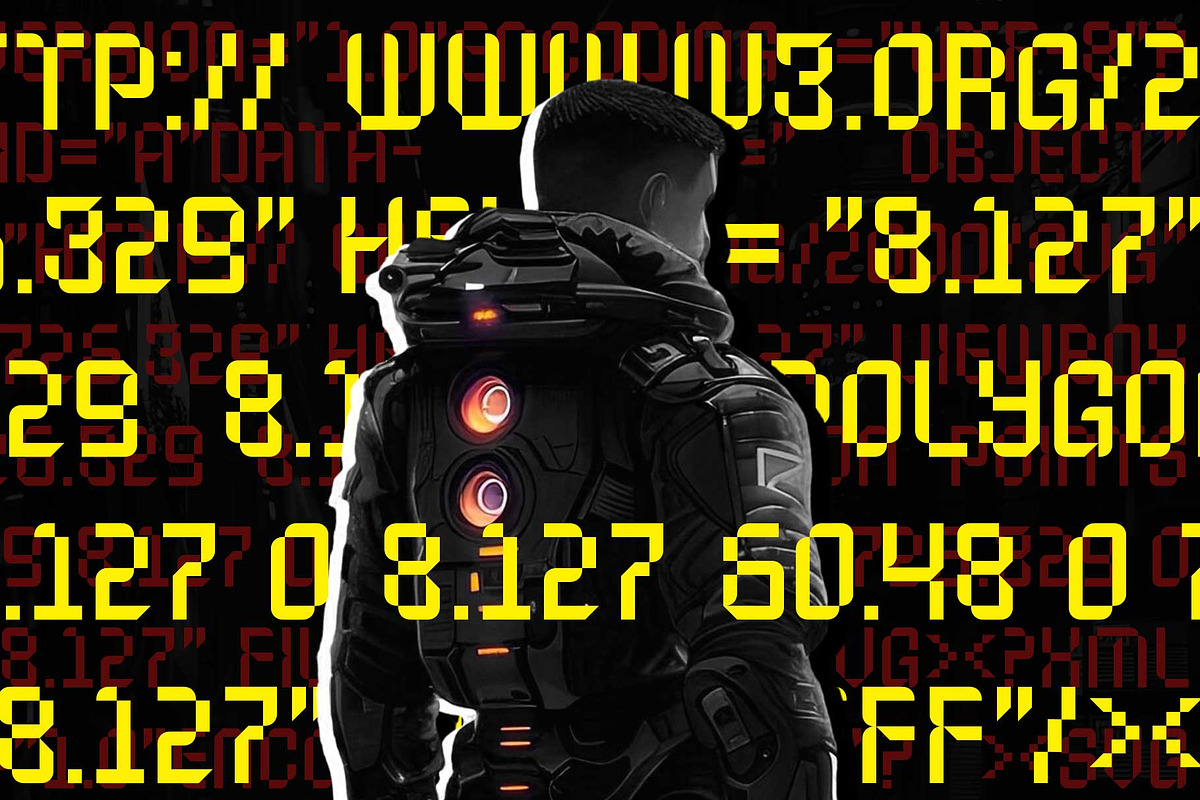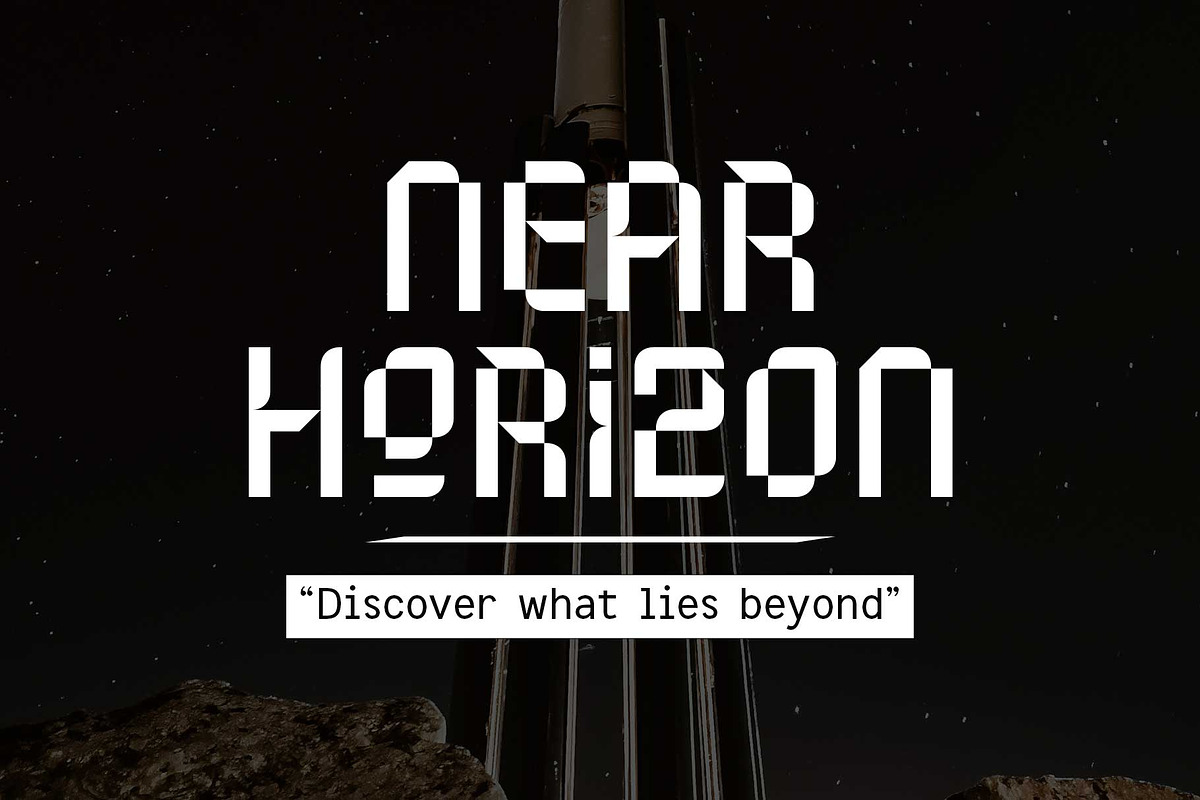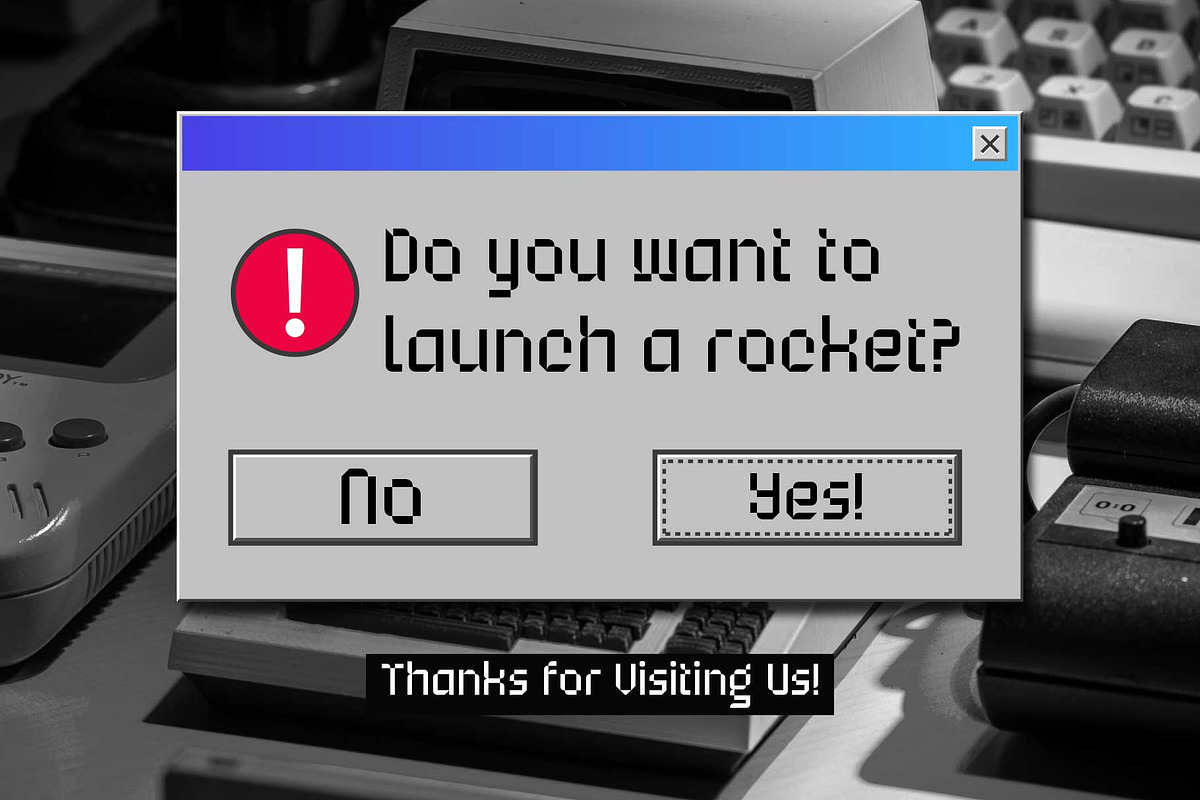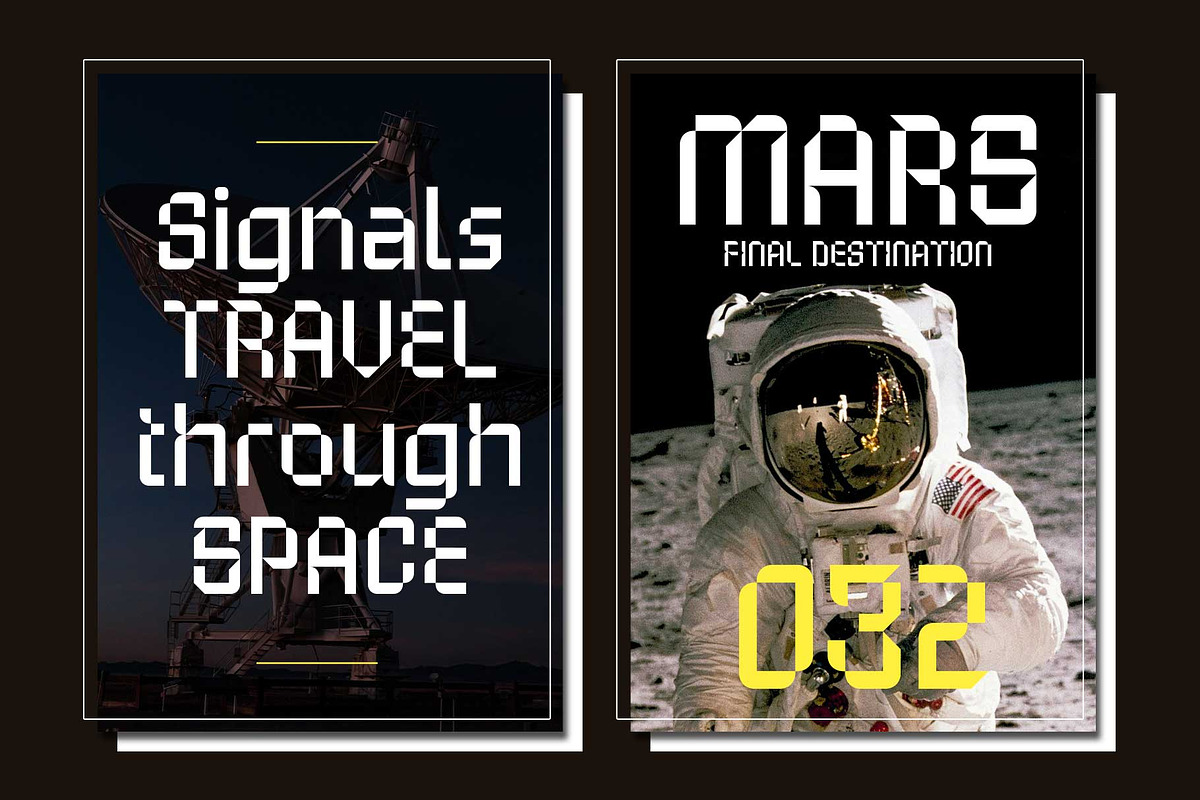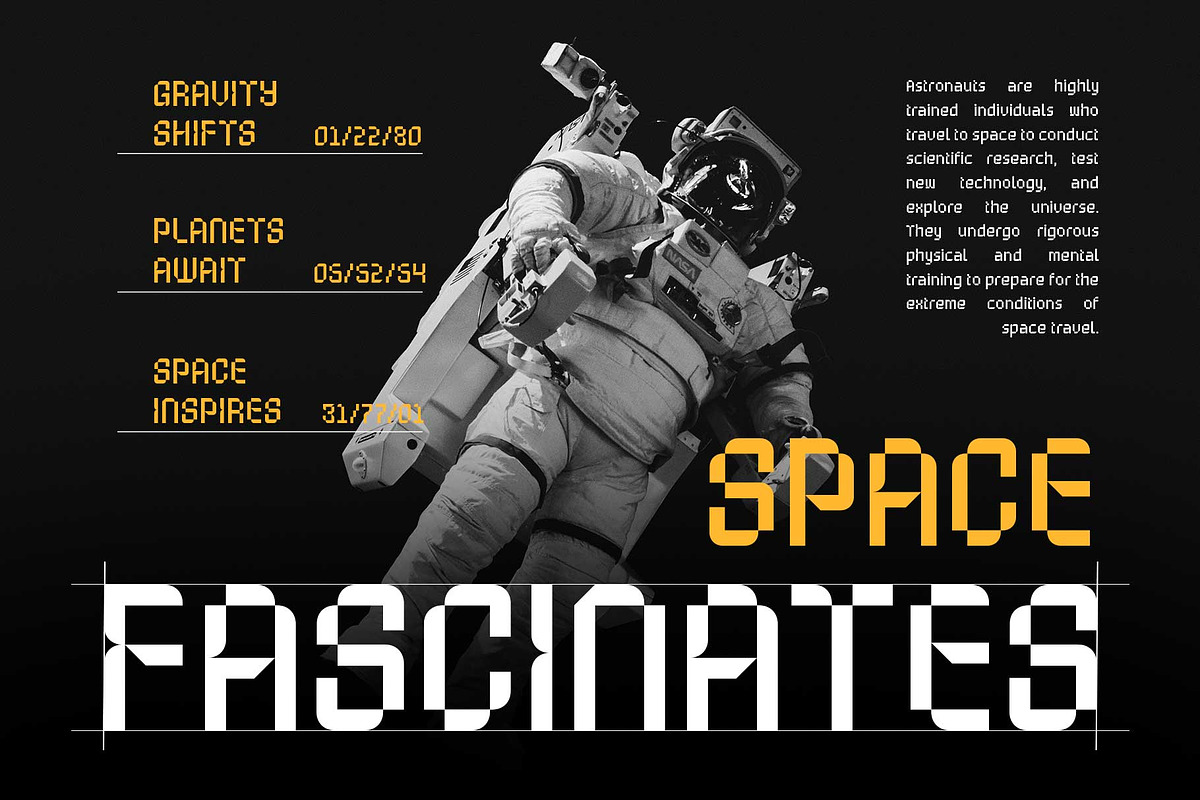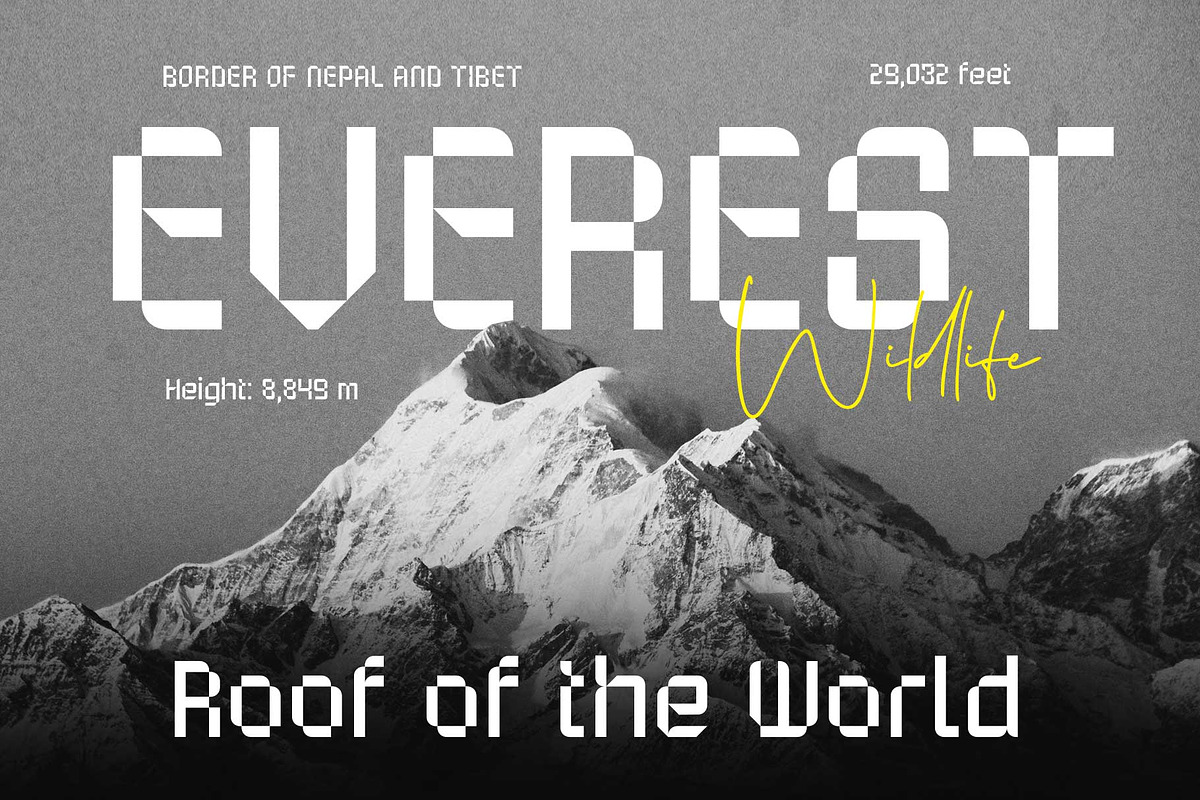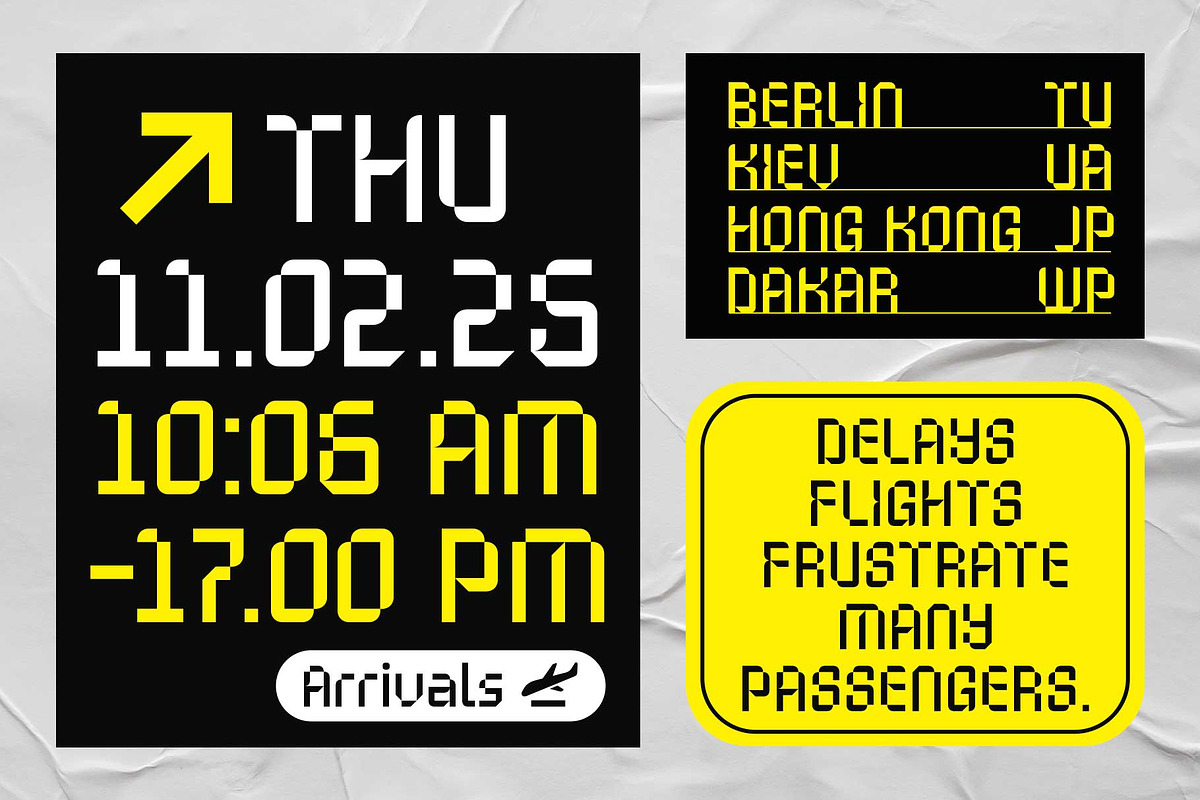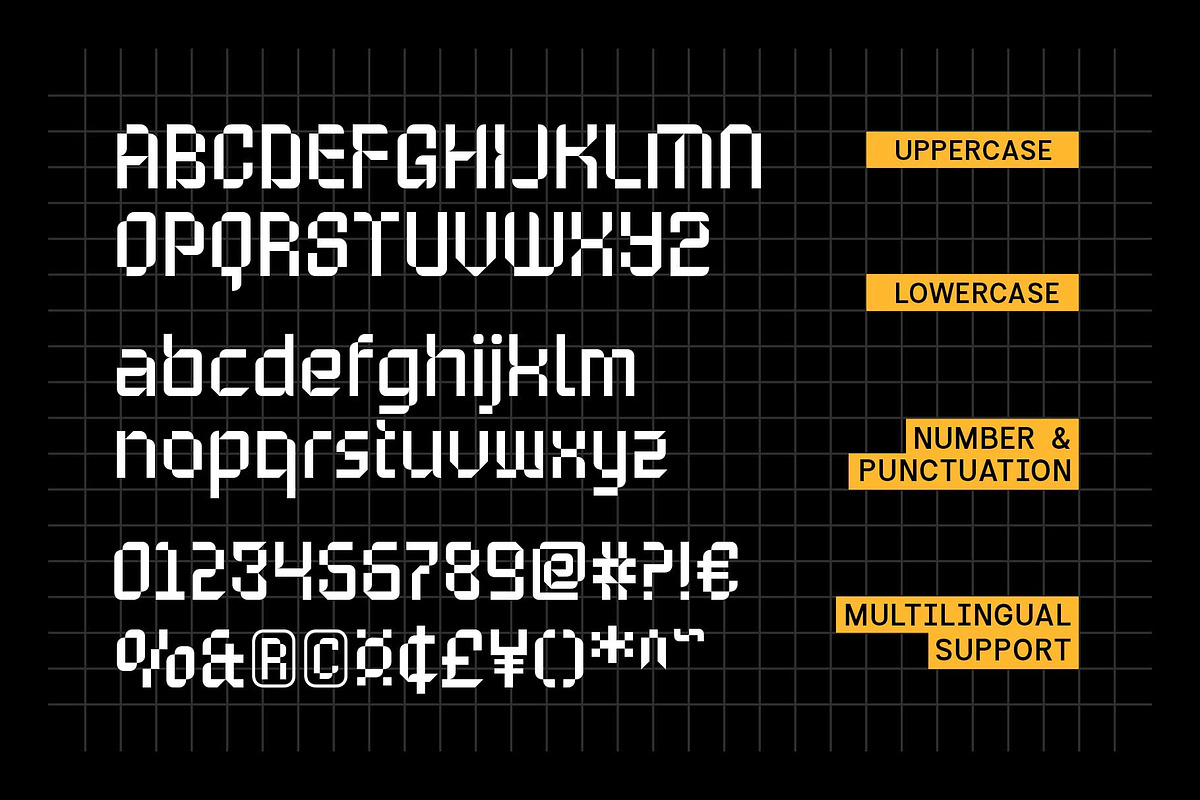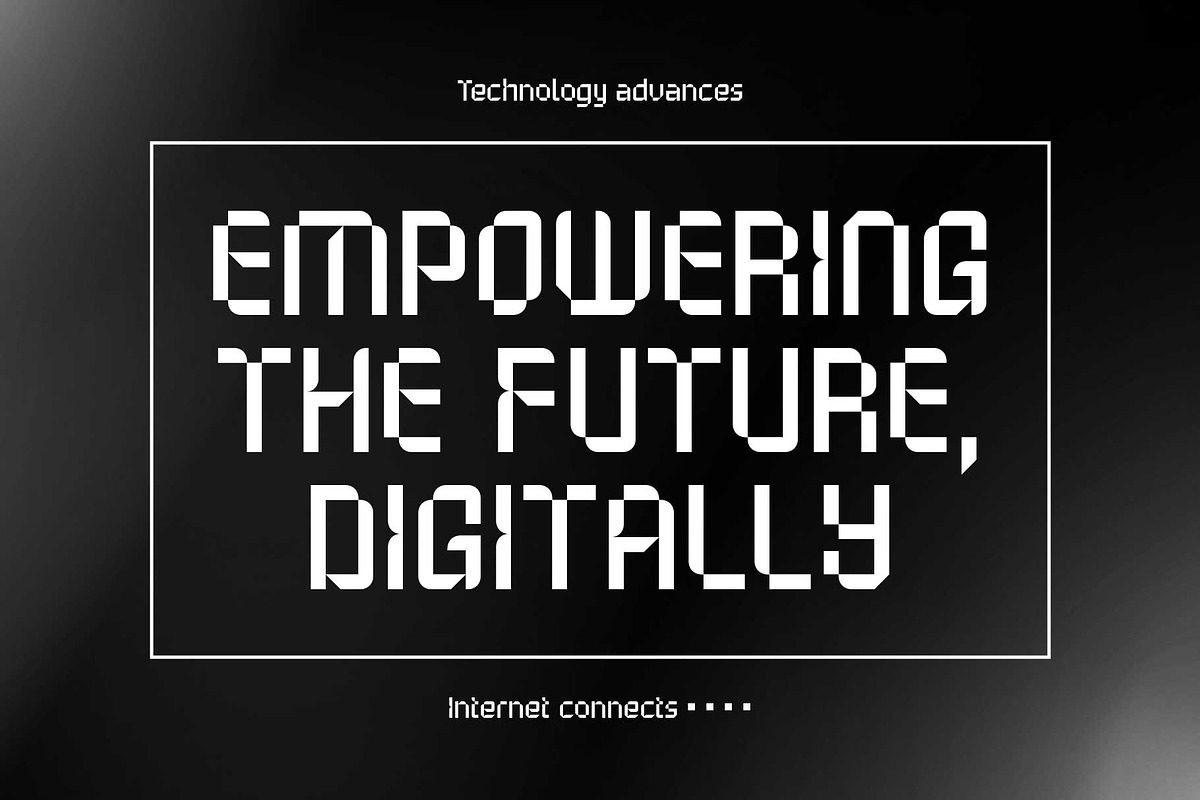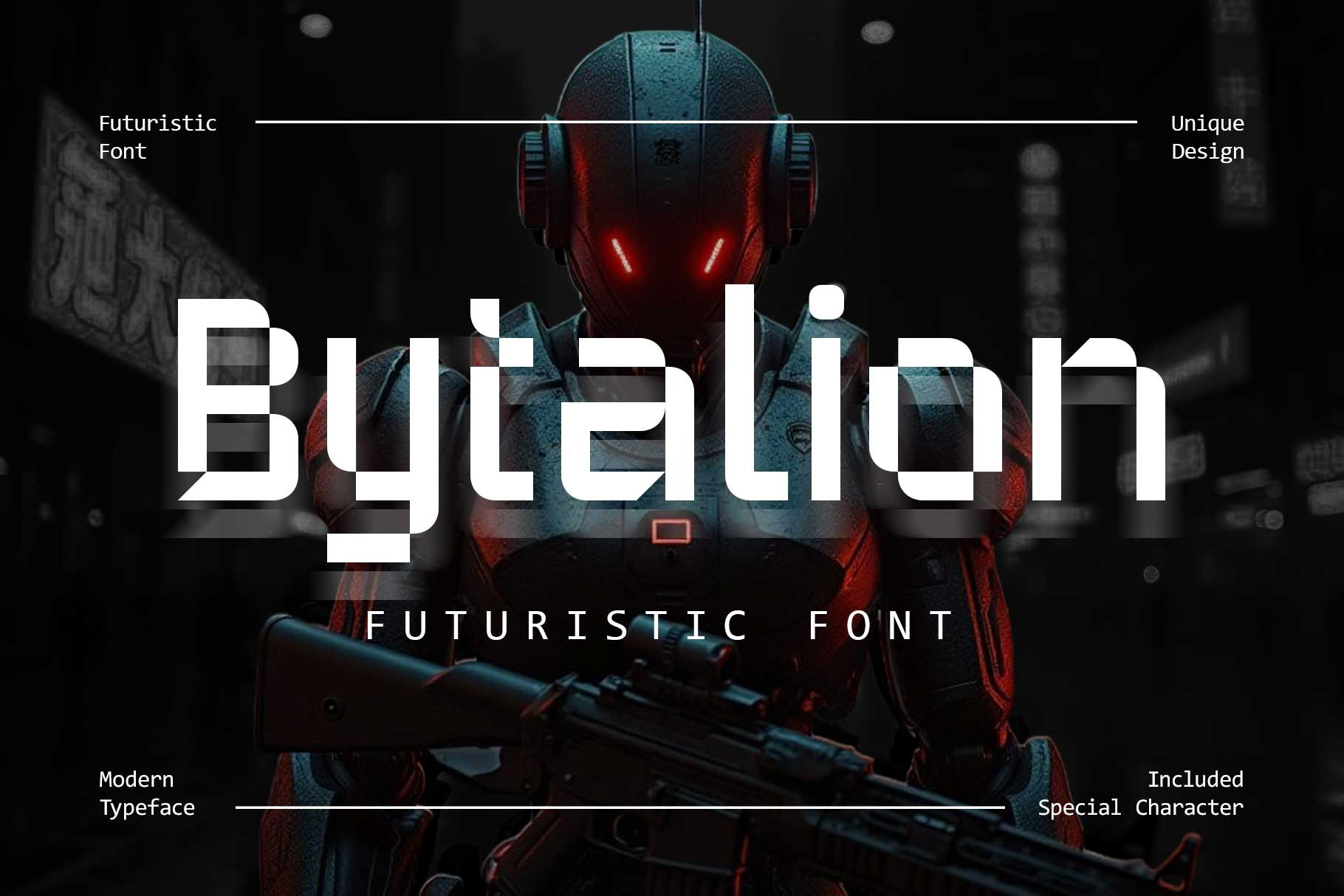
Bytalion - Futuristic Font
Bytalion is a futuristic font with a unique geometrical design. Combining rectangular and curvy shapes, this font takes you on a sci-fi journey straight out of a movie. Bytalion embodies modernism, technology, and minimalist style.
Equipped with stylistic alternates, Bytalion is ideal for posters, movie titles, books, motion graphics, branding, logos, and other projects that require a futuristic touch.